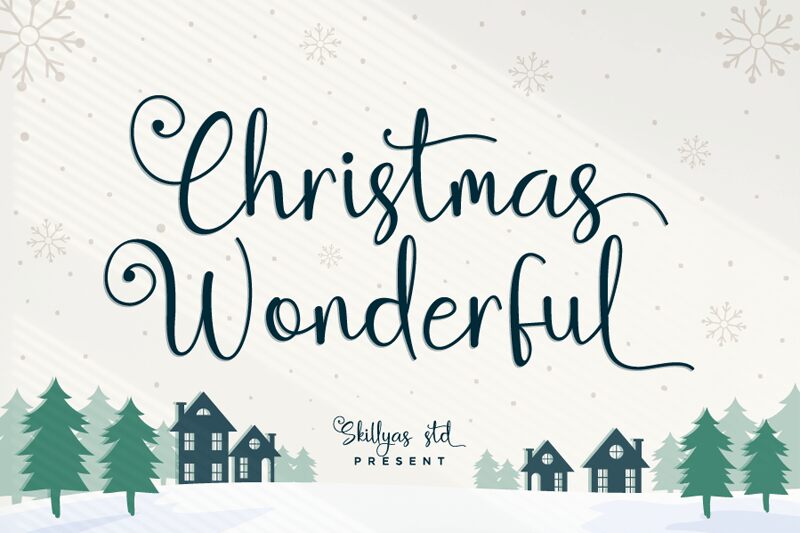
Immerse your designs in the festive spirit with Christmas Wonderful, a calligraphy font crafted by the artisans at skillyasstudio.com. This semi-light typeface dances with joyful elegance, capturing the heartwarming essence of holiday cheer. Perfect for greeting cards, invitations, and seasonal branding, Christmas Wonderful's flowing script and delicate weight add a personal touch that resonates with warmth and sophistication.
Whether etching names onto bespoke gift tags or headlining an enchanting event poster, this font's versatility shines. Its distinctive strokes reflect a handcrafted quality that stands out in digital landscapes, making it a go-to choice for creatives seeking to infuse their projects with a touch of winter's magic. Embrace the charm of Christmas Wonderful and elevate your design work to new heights of artistry.
Christmas Wonderful